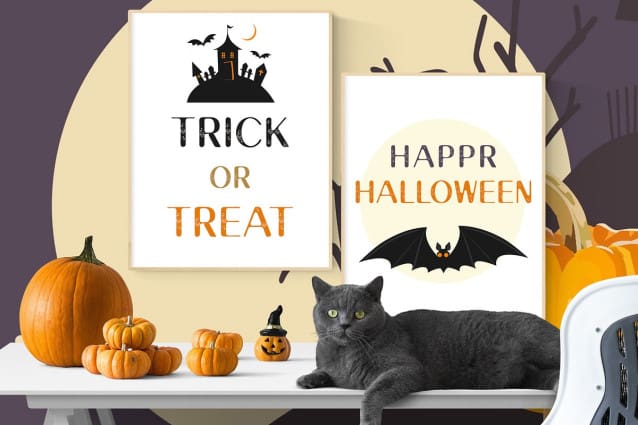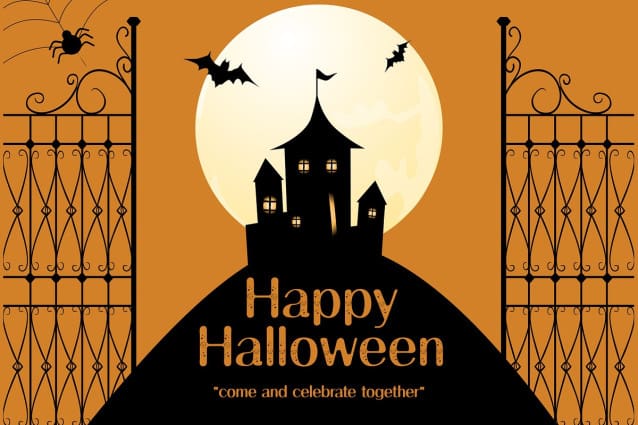
Spooky Zombie Font
Spooky Zombie Font is an incredible, creepy and scary halloween font that will help create thrilling halloween design projects! It contains uppercase, lowercase, number, punctuation and symbols. Spooky Zombie font will be perfect for packaging, presentations, logo, headlines, lettering, posters, branding, quotes, titles, magazines headings, web layouts, advertising, invitations, packaging design, books, and nearly any creative design.